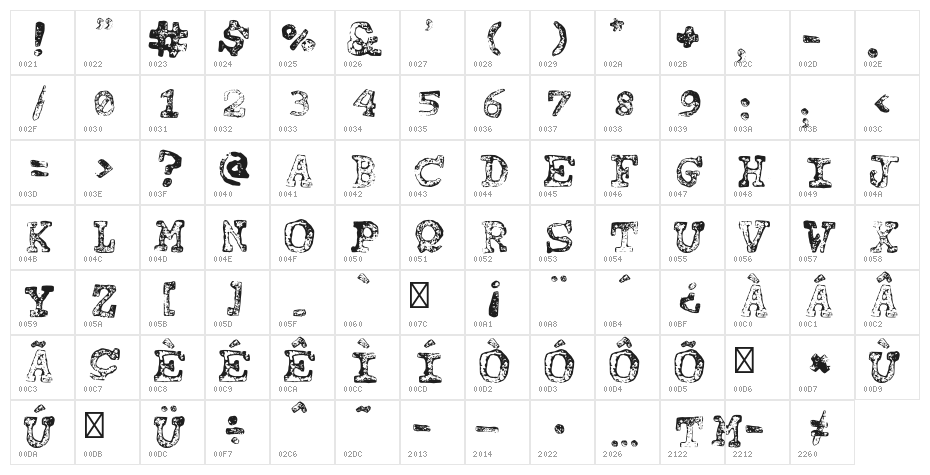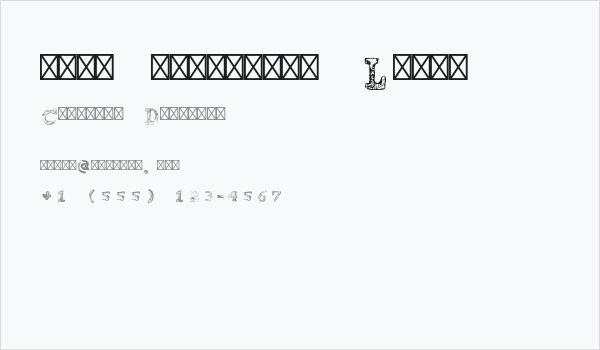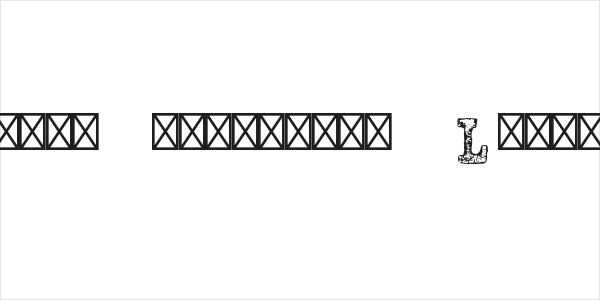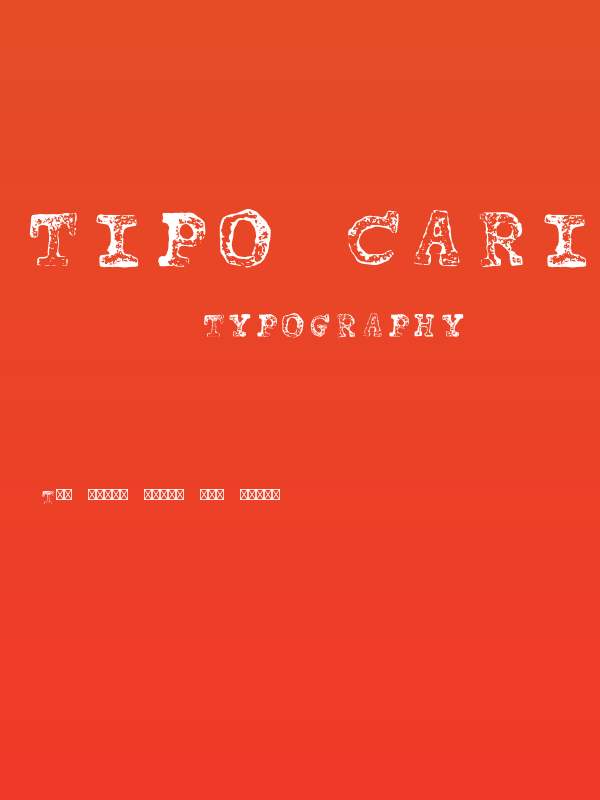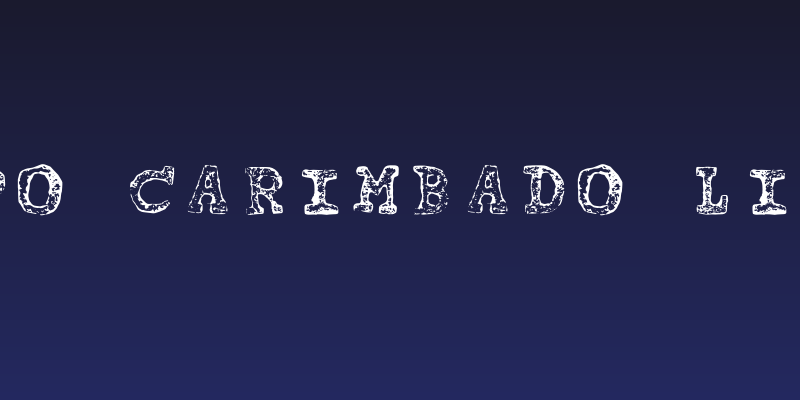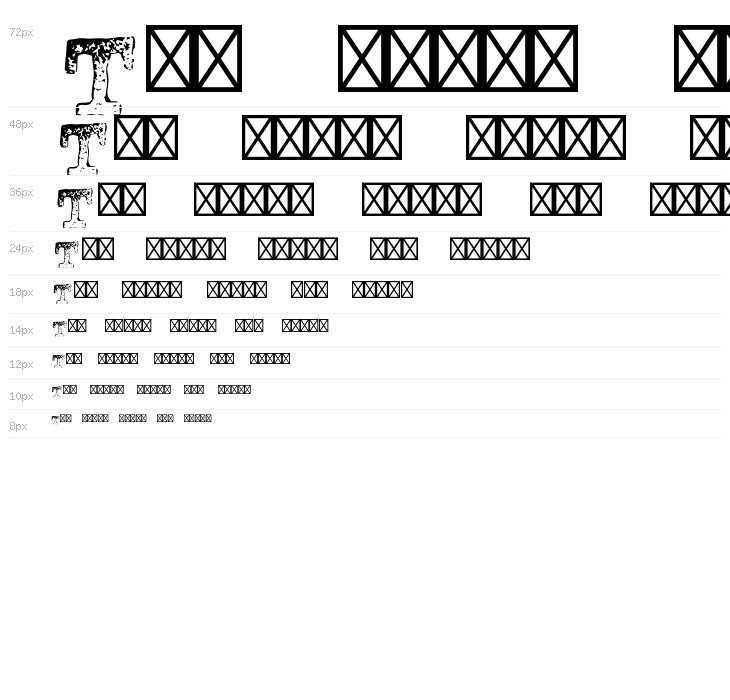
tipo carimbado Light Font
tipo carimbado Light Description
This font features a distressed, textured appearance reminiscent of vintage rubber stamps. The characters are bold and display a rough, worn-out look, giving them a unique, handcrafted feel. The uppercase and lowercase letters maintain a consistent style, with irregular edges and varying levels of texture that add to the overall rugged aesthetic. The numerals and special characters follow the same design principles, ensuring a cohesive look across all glyphs. This font is ideal for projects that require a rustic or industrial touch, such as posters, branding, or packaging designs.
Overall StyleVintage
Proposed ProjectsIdeal for vintage-themed posters, branding, packaging, and industrial design projects.